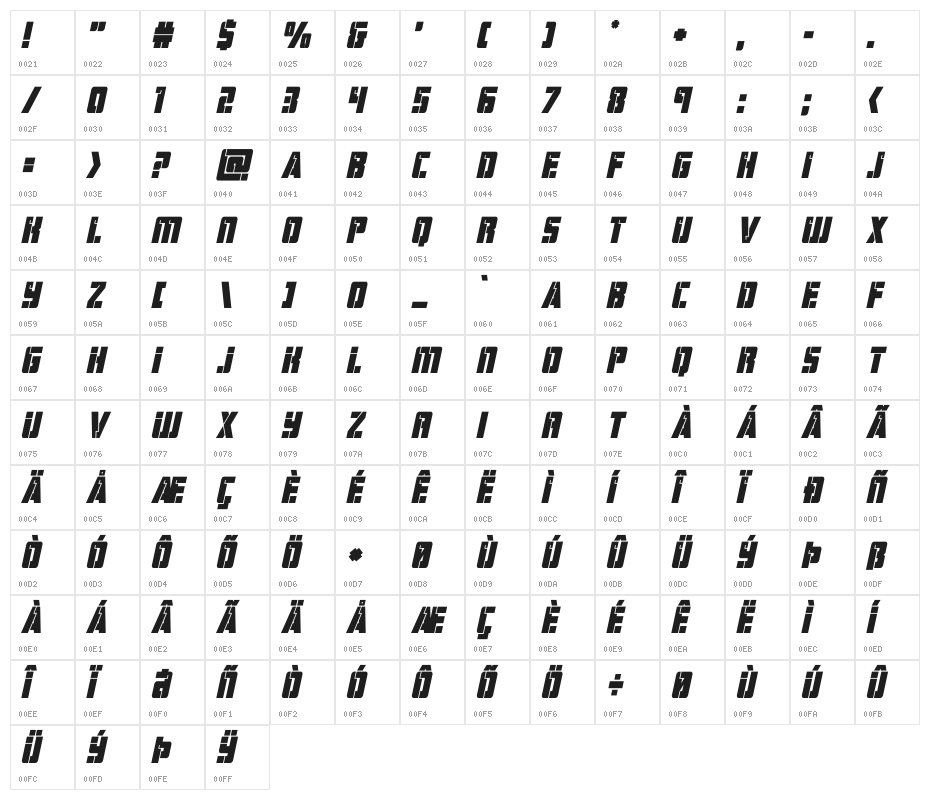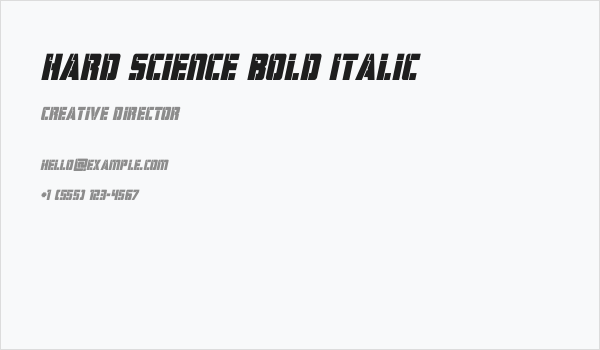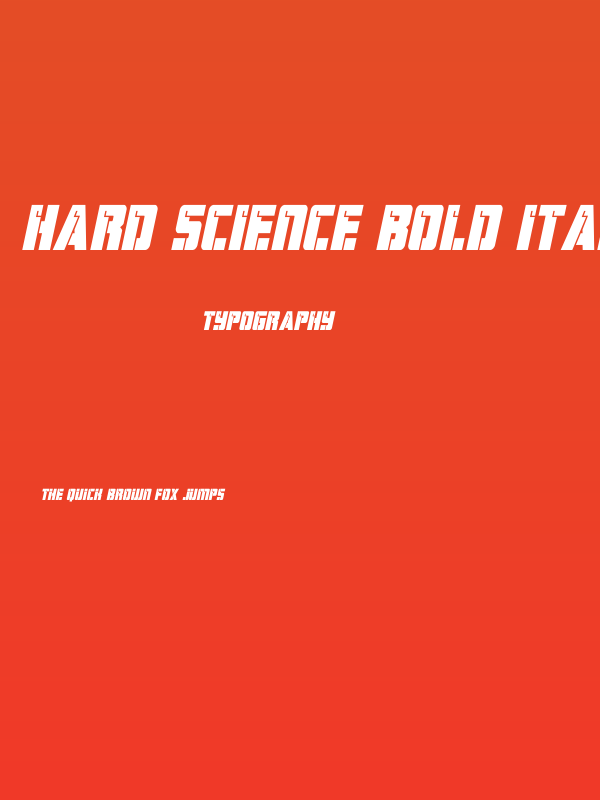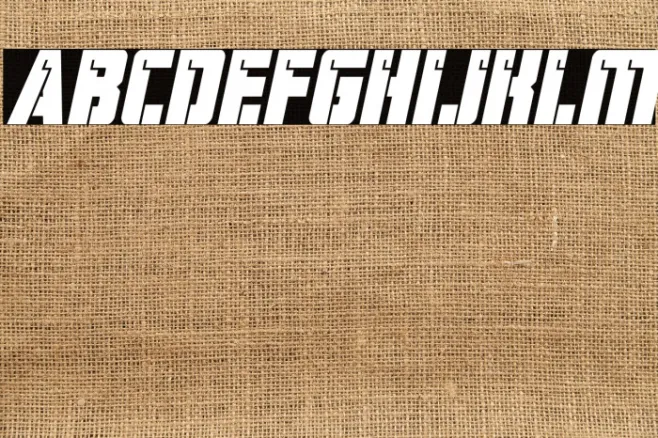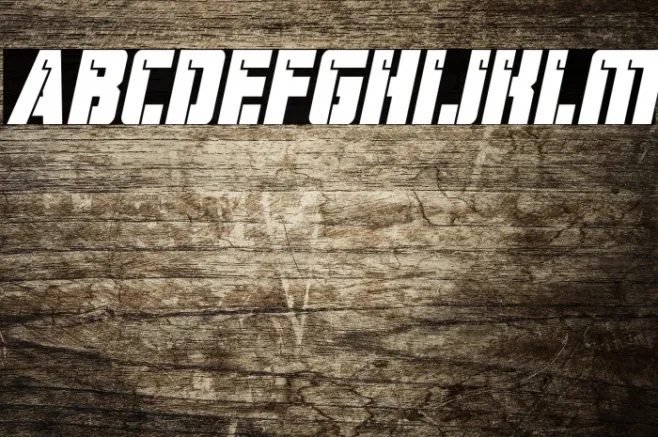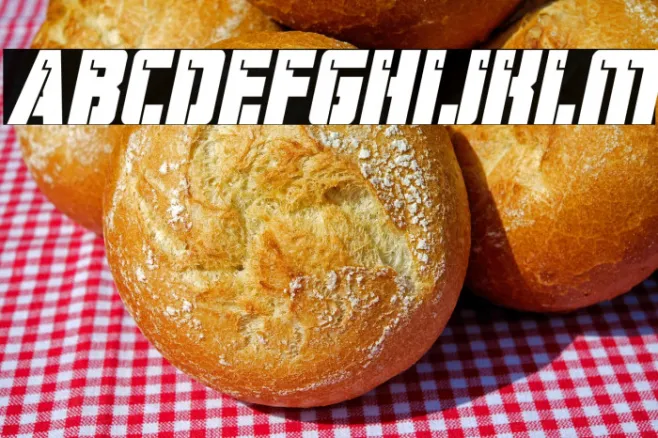
Hard Science Bold Italic Font
Hard Science Bold Italic Description
This bold and italicized font features a futuristic and dynamic design, characterized by its sharp angles and geometric shapes. The letters are heavily stylized with a strong forward slant, giving a sense of motion and speed. The strokes are thick and consistent, creating a powerful visual impact. The font's unique style is further enhanced by its tight character spacing, which adds to its compact and robust appearance. It is ideal for projects that require a modern and edgy look, such as technology branding, sports team logos, or sci-fi themed designs.
| Proposed Projects | Technology branding, sports team logos, sci-fi themed designs, video game titles. |